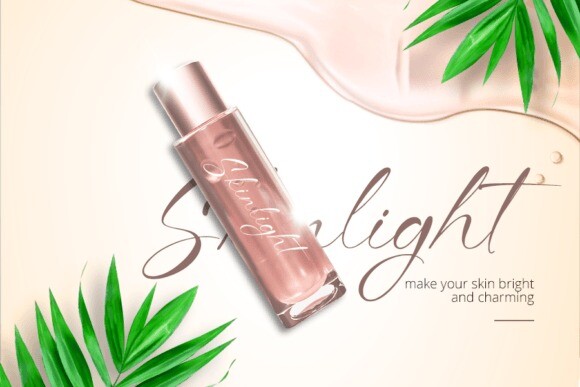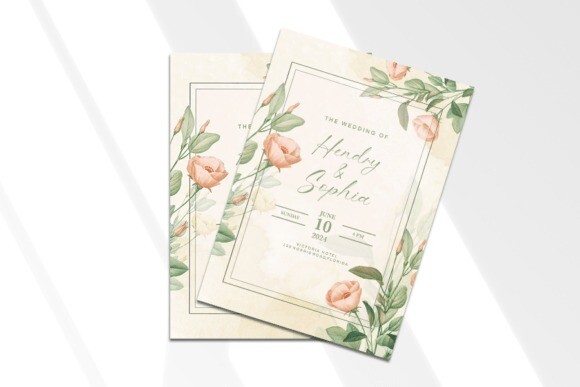
Bristy Signature Font
Bristy Signature Font, a sophisticated script font that oozes class. Its graceful curves and delicately refined strokes create an air of upscale luxury, providing the precise touch of finesse your creative projects crave. Transcend the ordinary with BristySignature, the perfect font for book titles, logos, and crafting, or make your branding and advertising materials stand out with its timeless beauty.
From business cards to skyline banners, social media posts to persuasive posters, and even exquisite invitations, this versatile font seamlessly merges with any theme. Whether your medium is print or digital, Bristy Signature offers an undeniably polished, superior set of typefaces that propels your creativity to exquisite new heights. Discover the allure of Bristy Signature – your key to unlocking an elevated realm of design elegance and style.